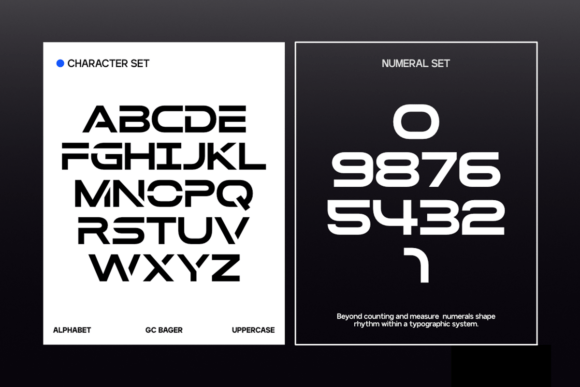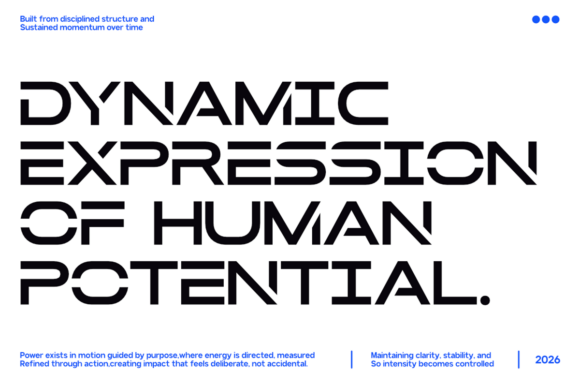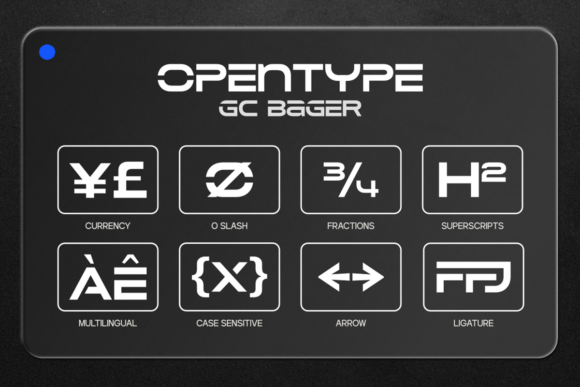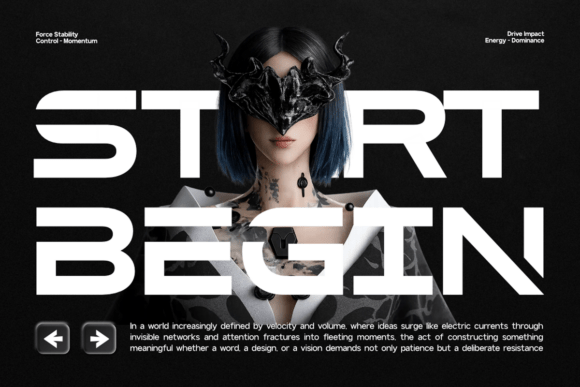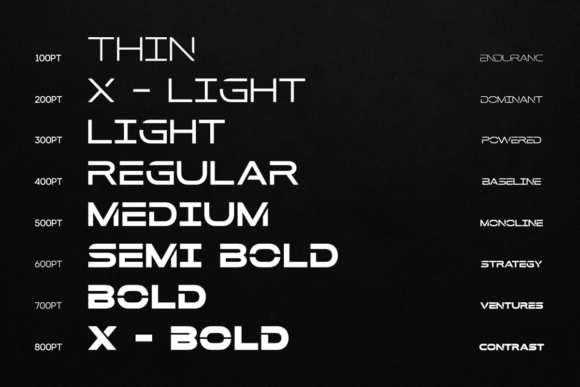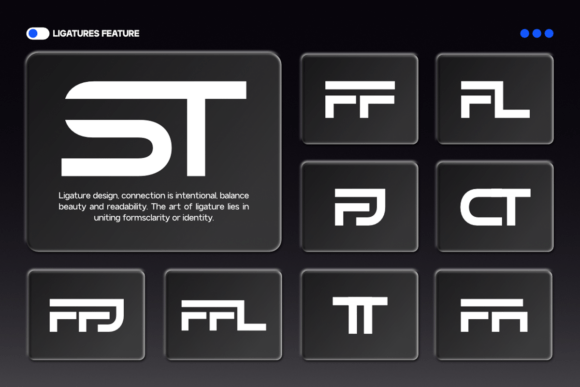
Unleashing the Power of Motion Design
Imagine a design moment where every element comes together in perfect harmony, a symphony of speed and precision that leaves a lasting impression. It’s that instant when you know you’ve created something truly special – and for designers, it’s the ultimate goal. That’s where the Bager Font comes in, a cutting-edge geometric sans-serif designed to elevate your branding and motion graphics to new heights.
With its sharp, wide-proportioned letterforms and 8 variable weights, Bager Font offers the perfect balance of style and versatility. Whether you’re designing for automotive, tech, sports, or cinematic projects, this typeface delivers a sense of confident speed and sophistication that’s hard to match. As a designer, you’ll love the freedom to experiment with Bager Font and create visually stunning experiences that capture the essence of your brand.
- Unique Characteristics: The font features a distinctive, modern design with clean lines and geometric shapes, giving it a unique and eye-catching appearance.
Bager Font Review
I recently had the chance to work with the Bager font, and I have to say it’s a mixed bag (no pun intended). ✨
- ✨ Unique character: Bager has a distinctive, playful feel that’s perfect for creative projects.
- ✨ Good for titles: The font is well-suited for headings and titles, where you want to make a statement.
- ✨ Friendly feel: Bager has a warm, approachable personality that’s great for brand identities.
- ⚠️ Limited versatility: Bager is best used for short blocks of text, as it can become overwhelming at longer lengths.
- ⚠️ Not ideal for body text: The font’s playful feel doesn’t lend itself well to large amounts of text, making it less suitable for articles or blog posts.
- ⚠️ Limited language support: Bager may not include all the languages you need, which could be a concern for international projects.
While Bager is a great choice for certain projects, it’s not a one-size-fits-all solution. It excels in specific situations, but may not be the best fit for more general use. With some careful planning and consideration, however, Bager can be a valuable addition to your design toolkit.
Tips for Getting the Most Out of Bager Font
Bager Font is a versatile font that works well for a variety of design projects. Here are a few tips for getting the most out of it:
- Use Bager Font for titles and headings to add a touch of elegance and sophistication.